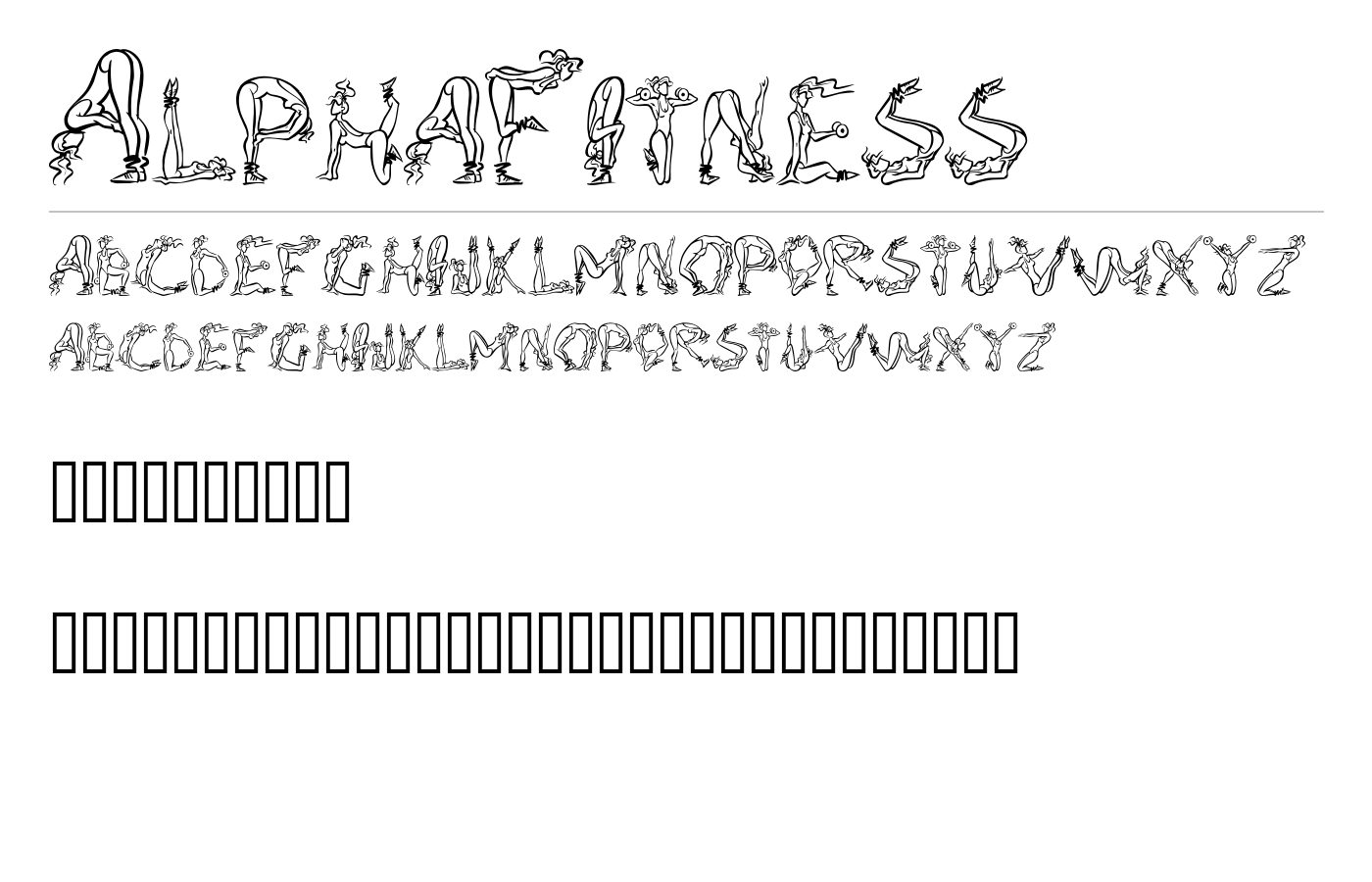
AlphaFitness is a playful and unique display font where each letterform is cleverly shaped by illustrated human figures in various fitness poses. This artistic and whimsical design creates an energetic and dynamic feel, making it perfect for fitness brands, sports-related projects, or any creative work seeking a fun and lively personality. Its intricate, hand-drawn style grabs attention but is best suited for headlines, logos, or short text rather than long body copy.
AlphaFitness Font